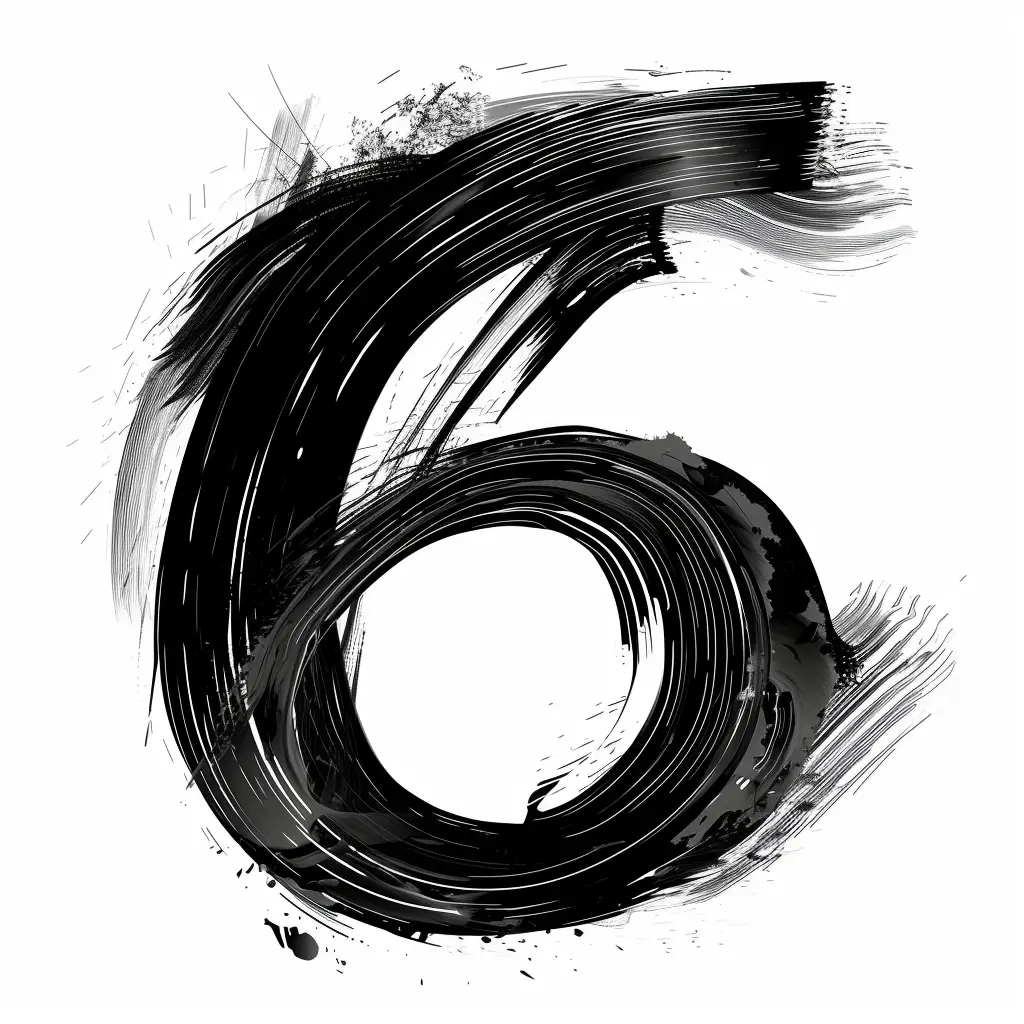
This image features a stylized, artistic representation of the number 6, rendered with bold, dynamic black brushstrokes that create a sense of movement and texture. The design uses varying shades of black against a clean white background, with splatters and fine lines adding a raw, expressive quality. The circular form of the 6 is emphasized by layered, swirling strokes, giving it a fluid, almost calligraphic appearance.